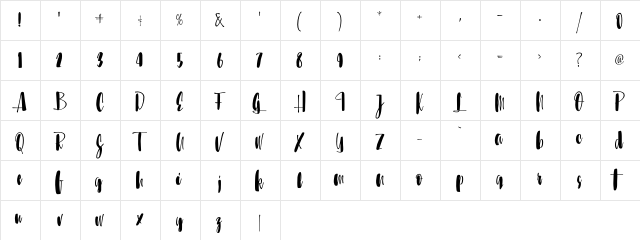
Sunbreath Regular
Design Context for Sunbreath Typeface
Sunbreath is a composed and adaptable typeface that performs quietly and consistently across a wide range of design contexts.